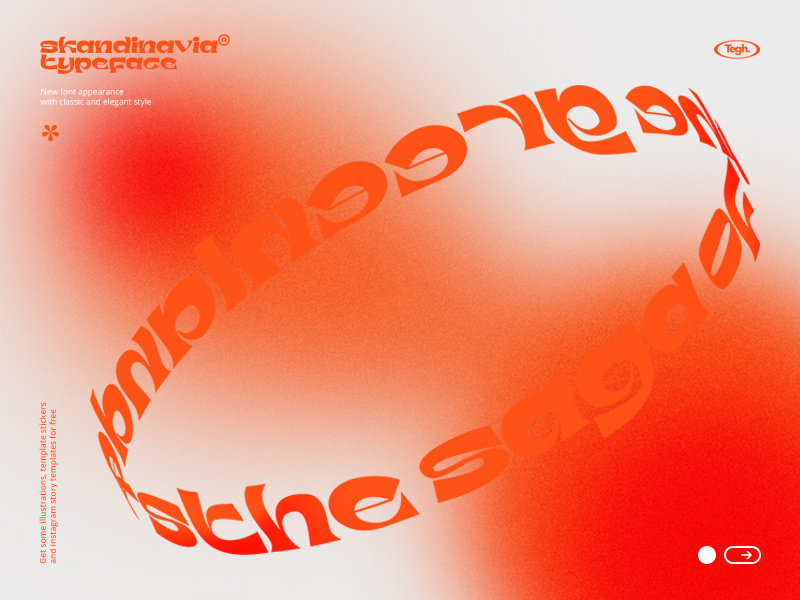
skandinavia font display
hello friends this is my latest product in the form of a display font that has a distinctive style that can be used for some of your graphic design needs I hope you guys like it